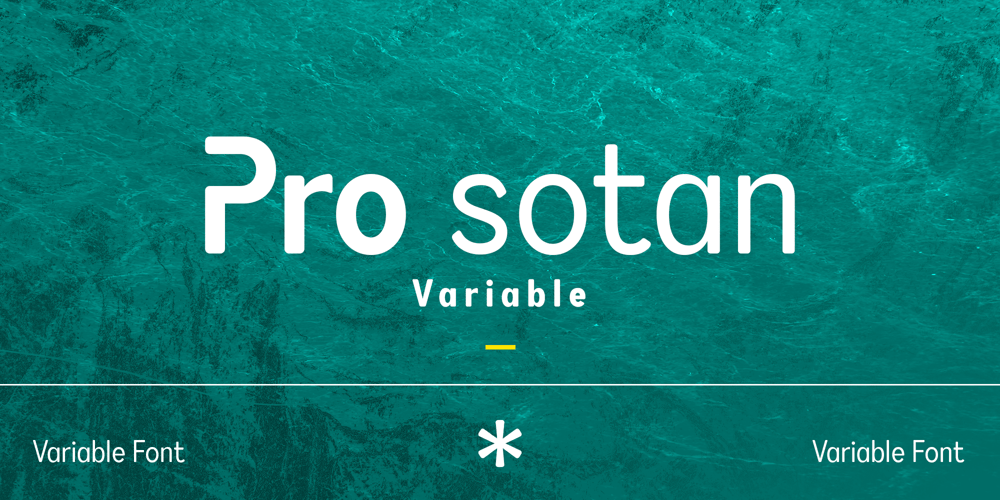
Pro Sotan Variable Font Family was designed by Sidik Sidik and published by Differentialtype. Pro Sotan Variable contains 1 styles and family package options. Enter Pro Sotan Variable – a sleek, sans serif typeface embodying contemporary charm. Its chic, modern design makes it a perfect fit for crafting headlines with impact, creating eye-catching logos, designing unique packaging, and presenting cohesive corporate identities. Beyond that, it’s the dream choice for typing up your documents with a touch of polished sophistication. Ideal for advertisements that need instant attention, Pro Sotan Variable seamlessly blends functionality with style.